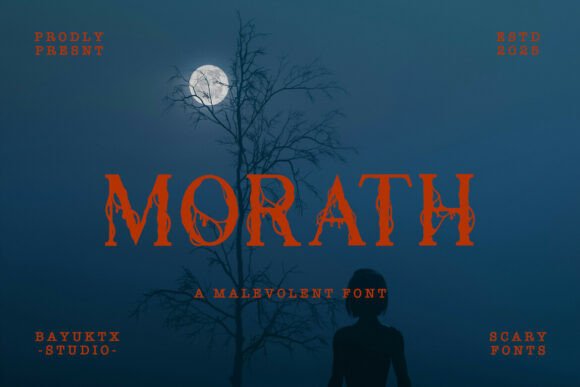
Morath Font: A Malevolent Serif Font for Dark Designs
Are you looking for a font that can add a touch of darkness and elegance to your designs? Look no further than Morath, a malevolent serif font that is sure to make a statement. In this article, we’ll dive into the world of Morath, exploring its unique features, design inspiration, and uses.
What is Morath Font?
Morath is a dark and sinister serif typeface that is designed to bleed with character. Its twisted veins and dripping details create a haunting yet elegant appearance, blending gothic artistry with refined serif structure. This font is perfect for designers who want to add a touch of horror and mystery to their designs.
Design Inspiration
Morath is inspired by horror movie titles and cursed manuscripts, which gives it a unique and eerie feel. The font’s design is a blend of traditional serif structures and gothic artistry, making it perfect for designs that require a touch of darkness and elegance.
The font’s creator aimed to create a typeface that would evoke an atmosphere of fear, mystery, and power in every letter. With its sharp edges and organic vein-like textures, Morath is sure to deliver a haunting and intense visual experience.
Characteristics of Morath Font
So, what makes Morath font so unique? Here are some of its key characteristics:
- Twisted veins and dripping details: Morath’s twisted veins and dripping details give it a haunting and eerie feel, making it perfect for horror-themed designs.
- Sharp edges: The font’s sharp edges add to its malevolent personality, making it perfect for designs that require a touch of intensity and drama.
- Organic vein-like textures: Morath’s organic vein-like textures give it a unique and natural feel, making it perfect for designs that require a touch of elegance and sophistication.
- Gothic artistry: The font’s gothic artistry is evident in its twisted and ornate details, making it perfect for designs that require a touch of darkness and mystery.
Uses of Morath Font
Morath font is perfect for a variety of design projects that require a touch of darkness and elegance. Here are some of the most popular uses of Morath font:
- Horror posters: Morath font is perfect for horror posters, adding a touch of fear and mystery to your designs.
- Dark branding: The font’s dark and elegant feel makes it perfect for dark branding projects that require a touch of sophistication and intensity.
- Metal album covers: Morath font is perfect for metal album covers, adding a touch of aggression and intensity to your designs.
- Halloween-themed projects: The font’s spooky and eerie feel makes it perfect for Halloween-themed projects, such as flyers, posters, and social media graphics.
Tips for Using Morath Font
Here are some tips for using Morath font in your designs:
- Use it sparingly: Morath font is a bold and intense font, so use it sparingly to avoid overwhelming your designs.
- Pair it with a neutral font: Pair Morath font with a neutral font to create a striking contrast and add visual interest to your designs.
- Experiment with colors: Morath font looks great in a variety of colors, so experiment with different colors to find the one that works best for your design.
- Pay attention to typography: Pay attention to typography and make sure that your text is easy to read, even with a bold and intense font like Morath.
Morath font is a malevolent serif font that is sure to make a statement in your designs. Its twisted veins and dripping details create a haunting yet elegant appearance, blending gothic artistry with refined serif structure. With its sharp edges and organic vein-like textures, Morath is perfect for horror posters, dark branding, metal album covers, and Halloween-themed projects.